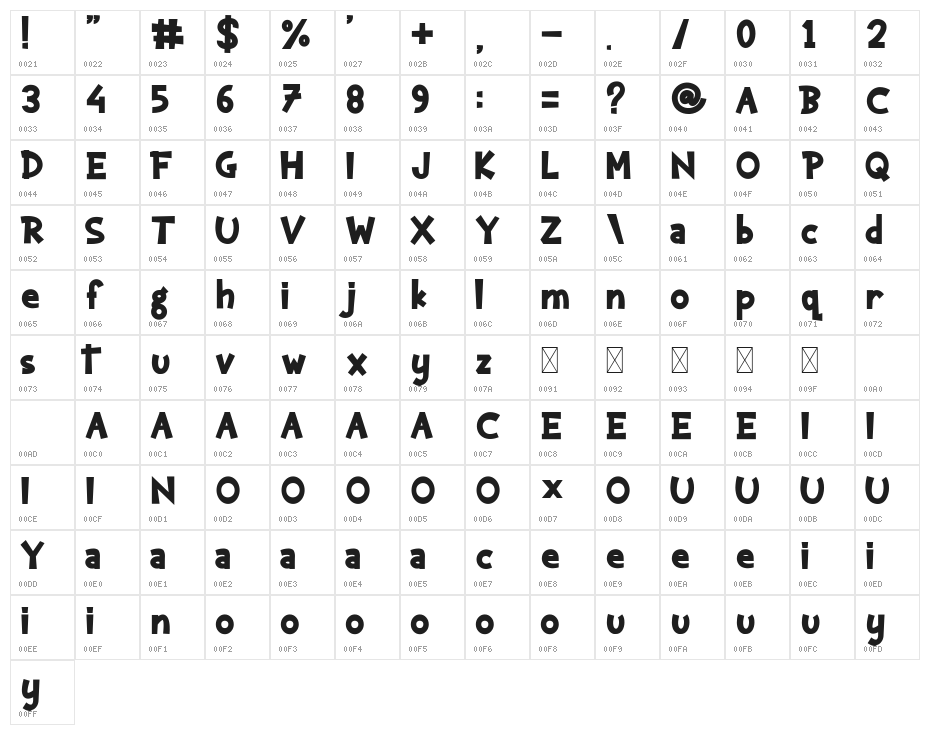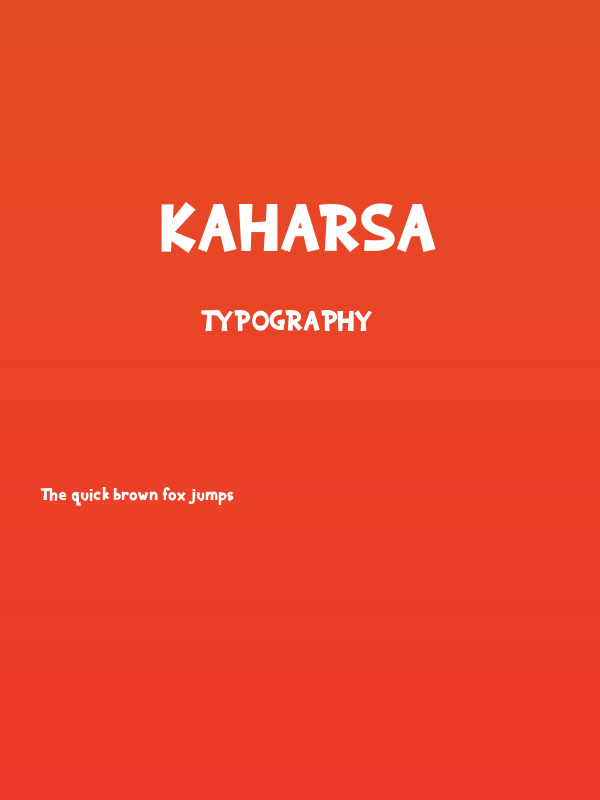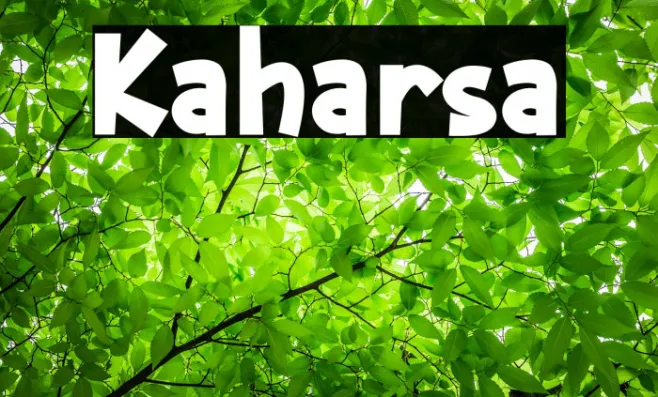
Kaharsa Font
Kaharsa Description
This font features a playful and bold style with a hand-drawn appearance. The characters are slightly irregular, adding to its whimsical charm. The uppercase letters are robust and have a strong presence, while the lowercase letters maintain a consistent flow with rounded edges. Numbers and special characters are designed to match the overall playful aesthetic, making them stand out with their bold and quirky shapes. This font is perfect for projects that require a fun and engaging look, such as children's books, playful branding, or creative posters. The bold strokes and unique character shapes make it eye-catching and memorable.
| Proposed Projects | Ideal for children's books, playful branding, creative posters, and any project needing a fun, engaging look. |